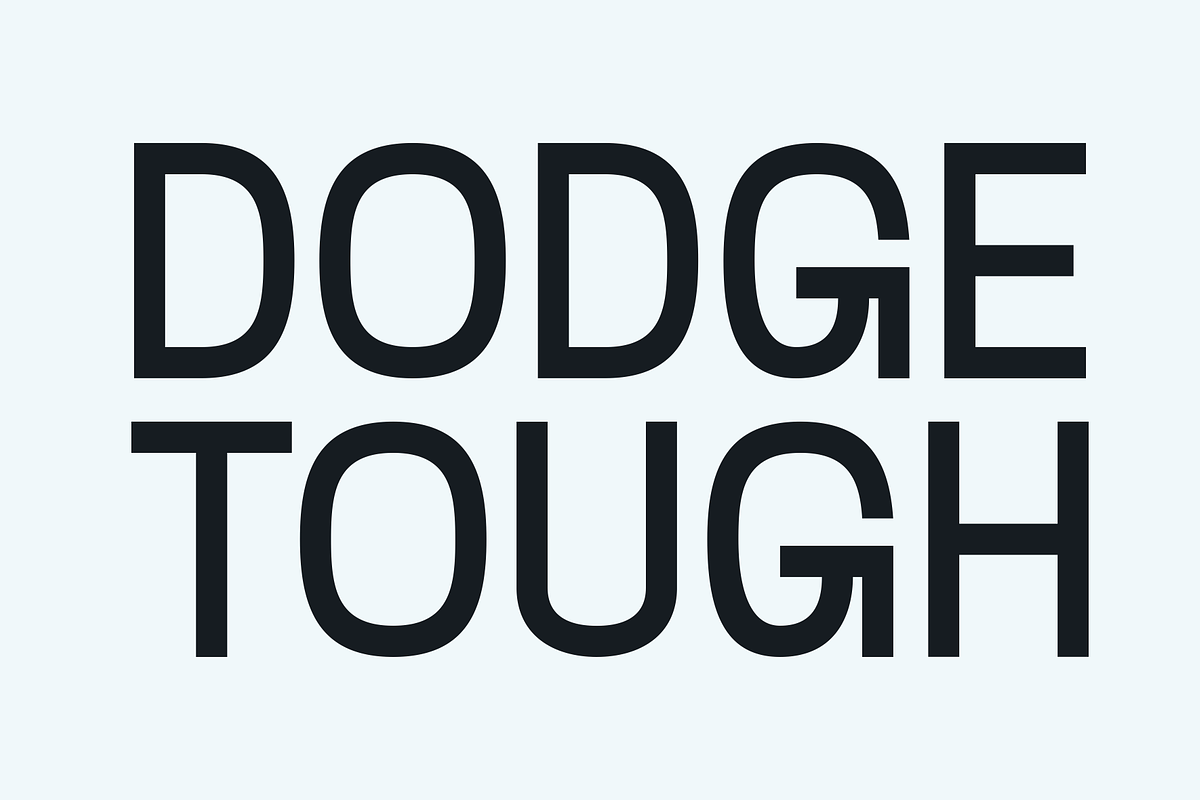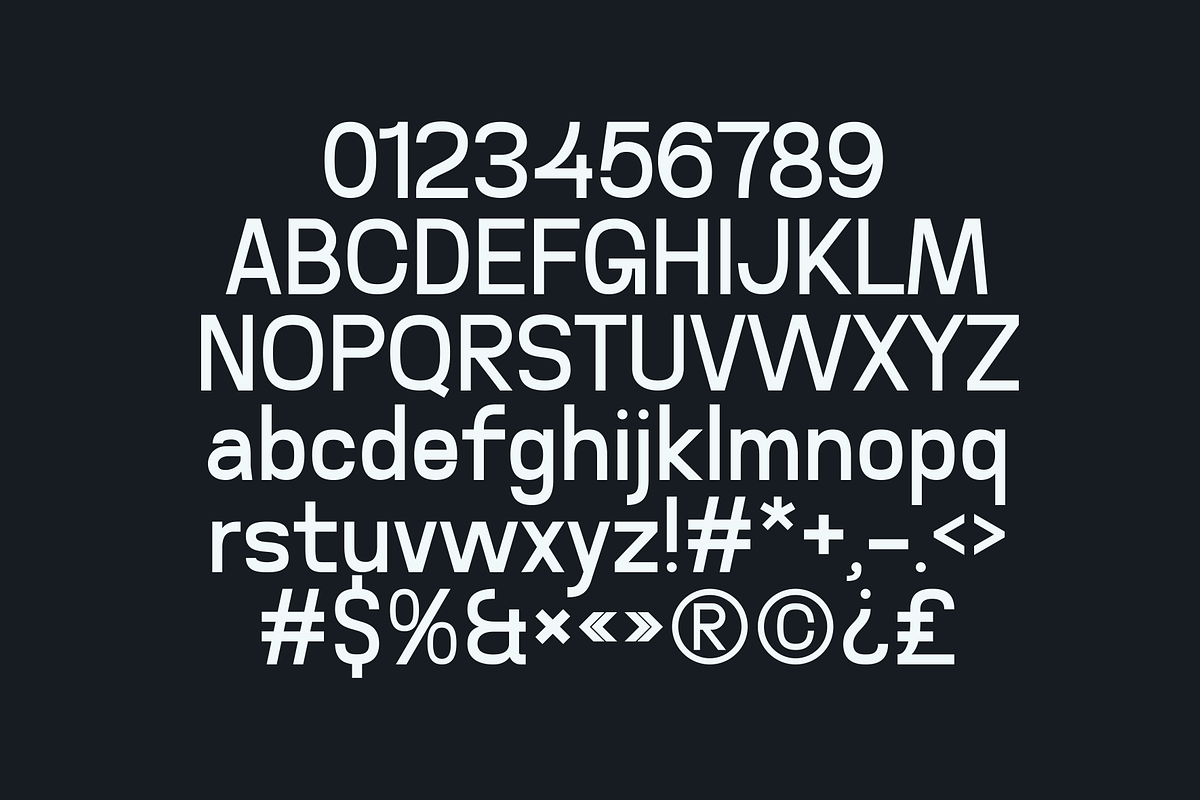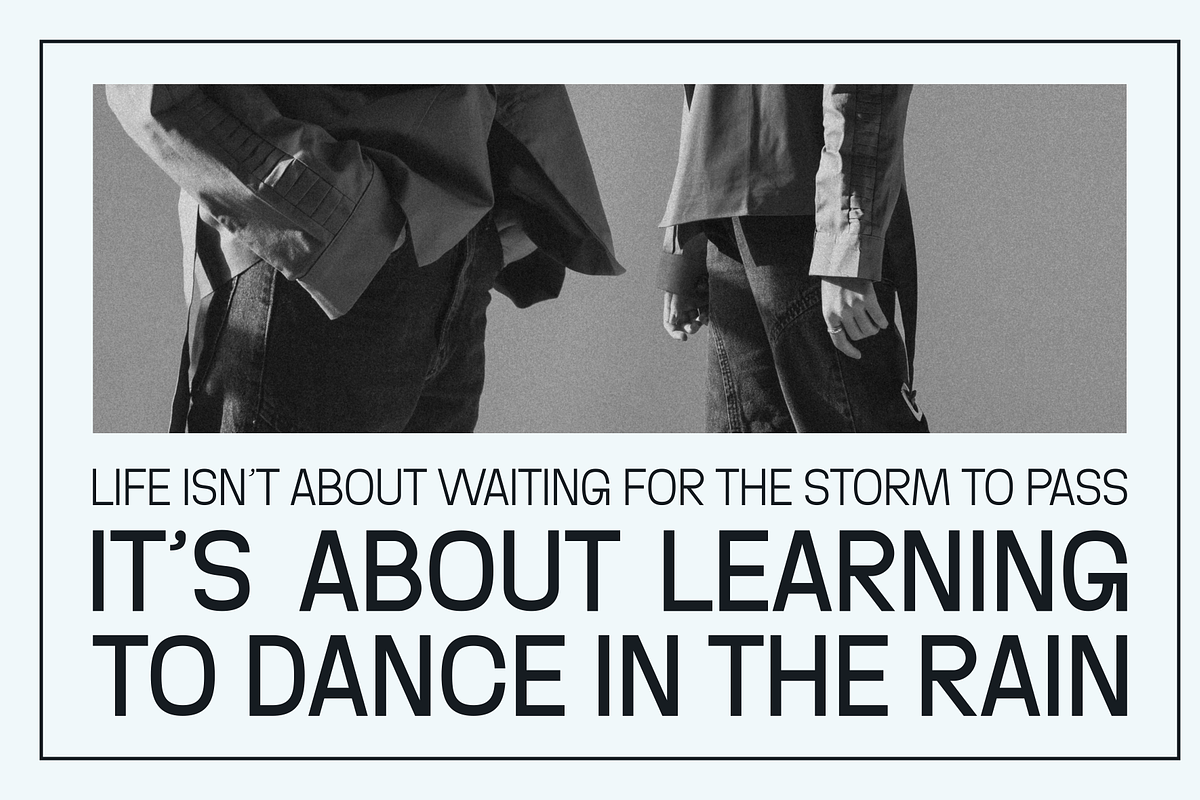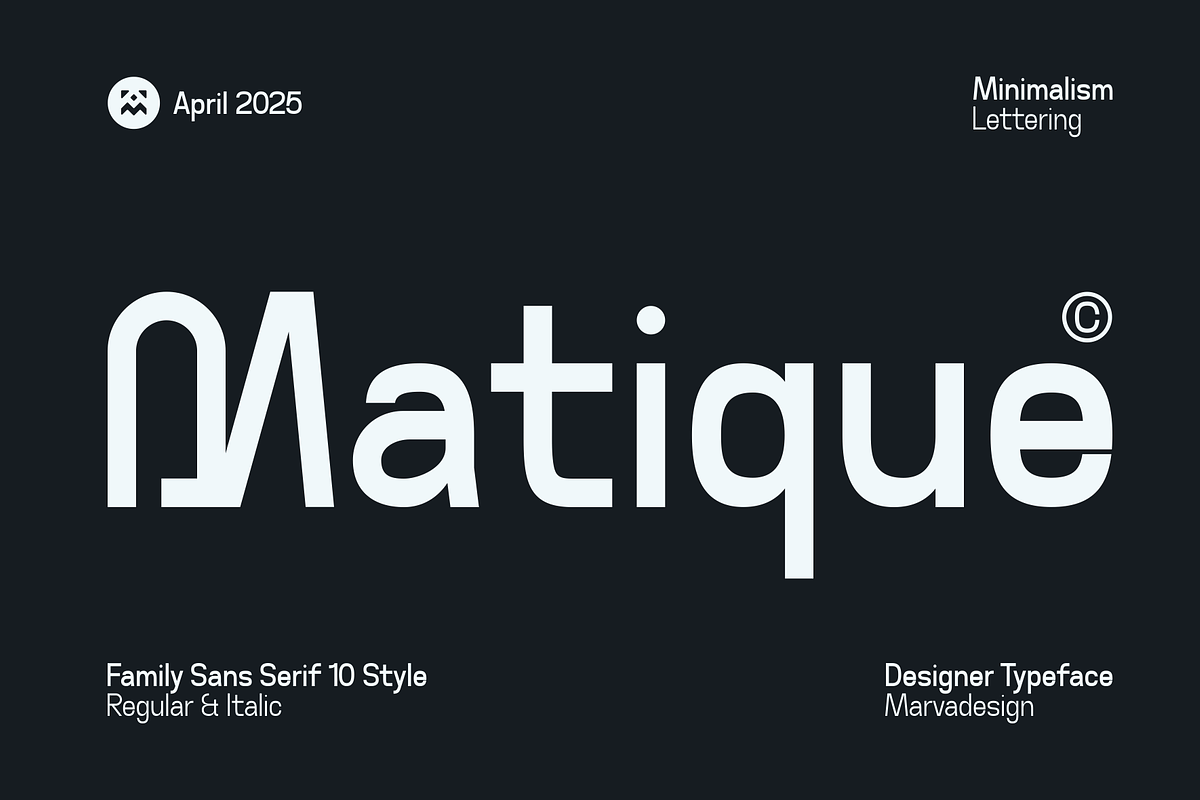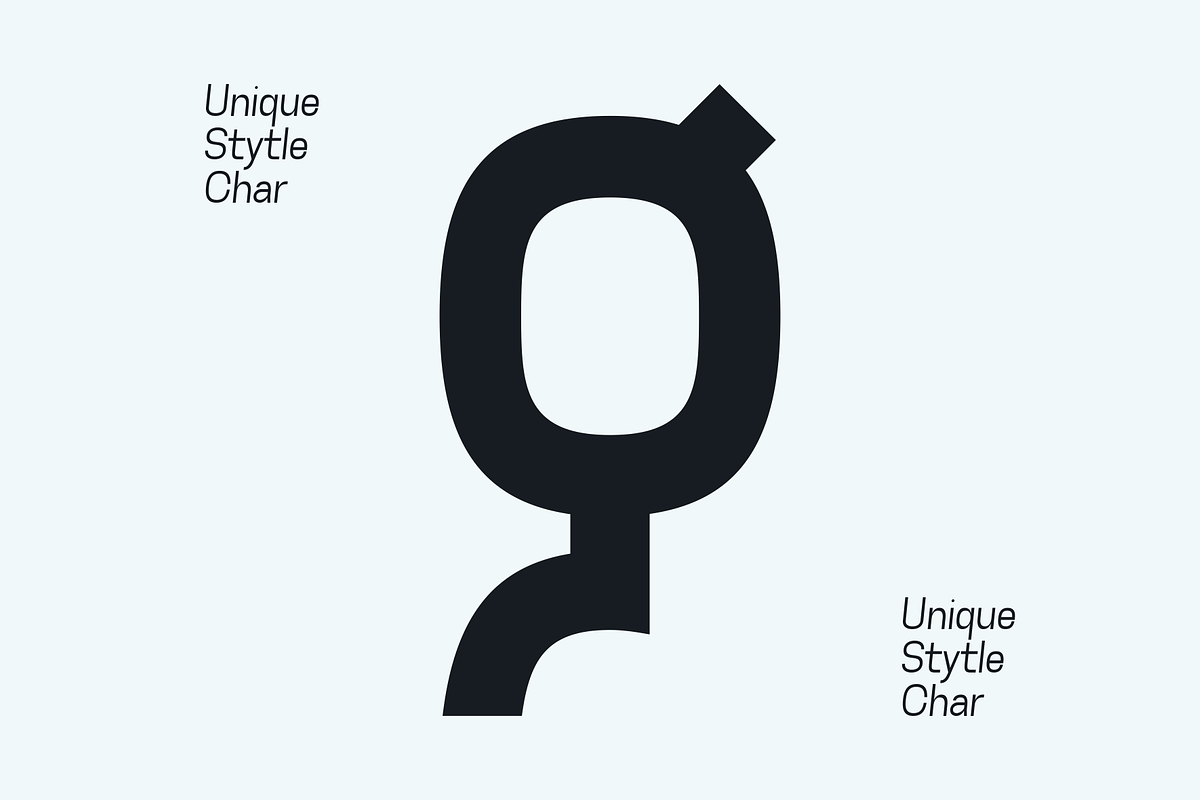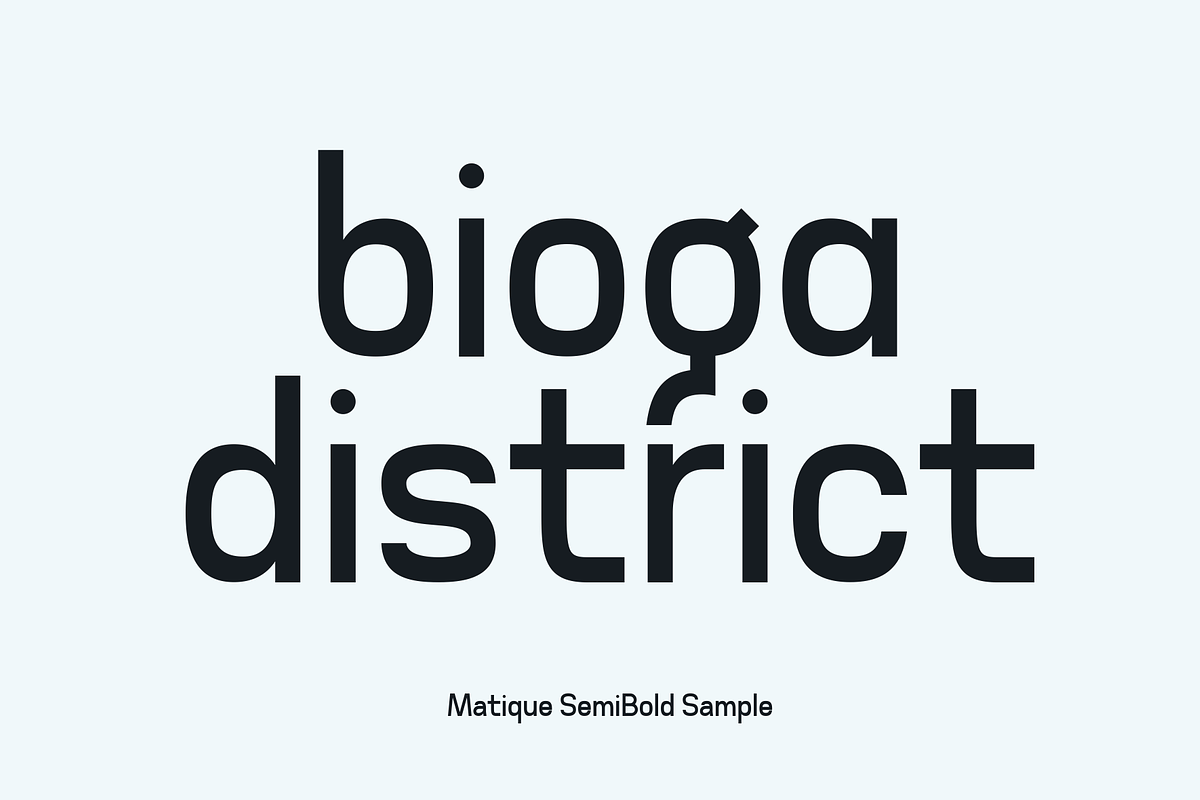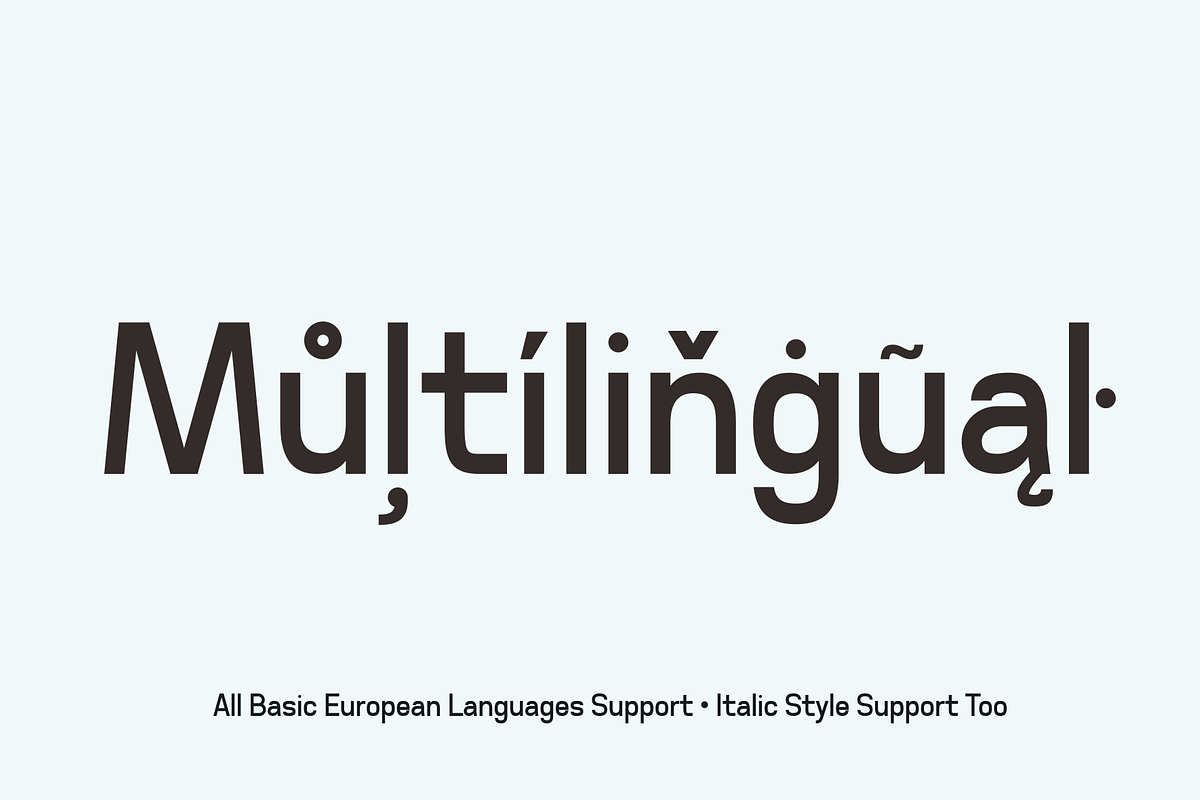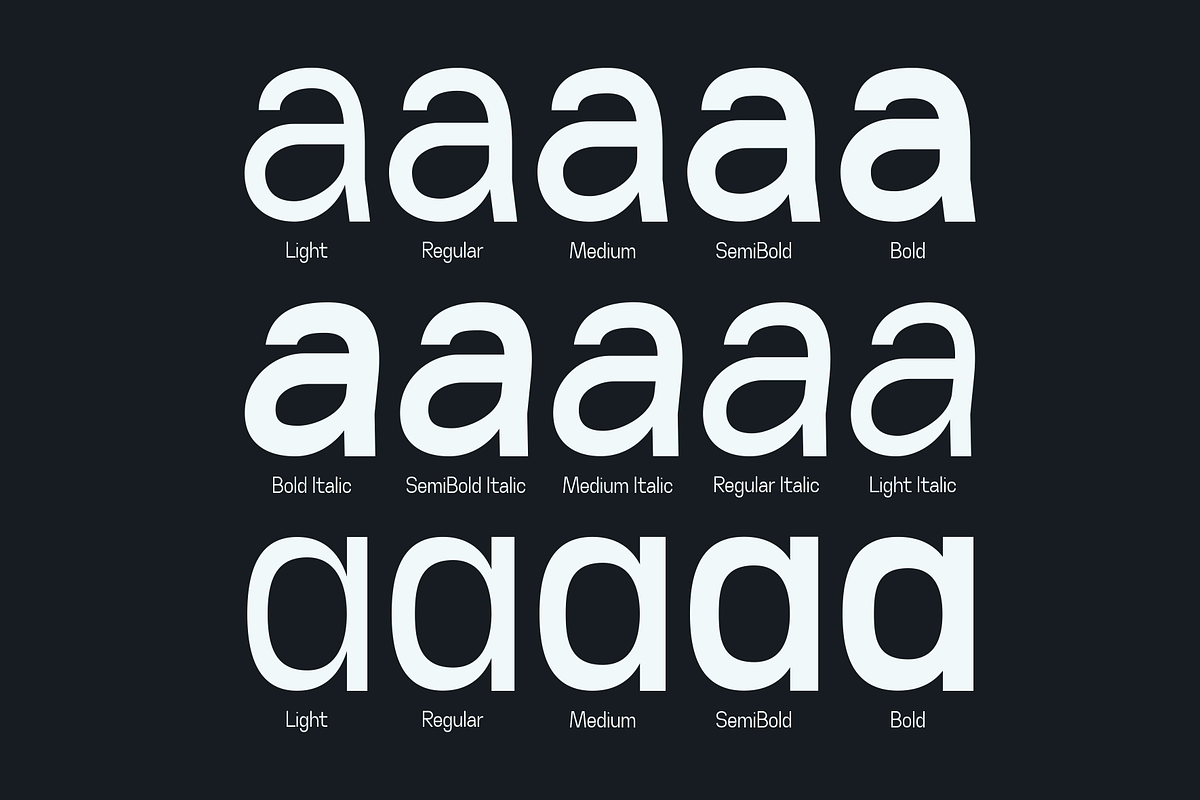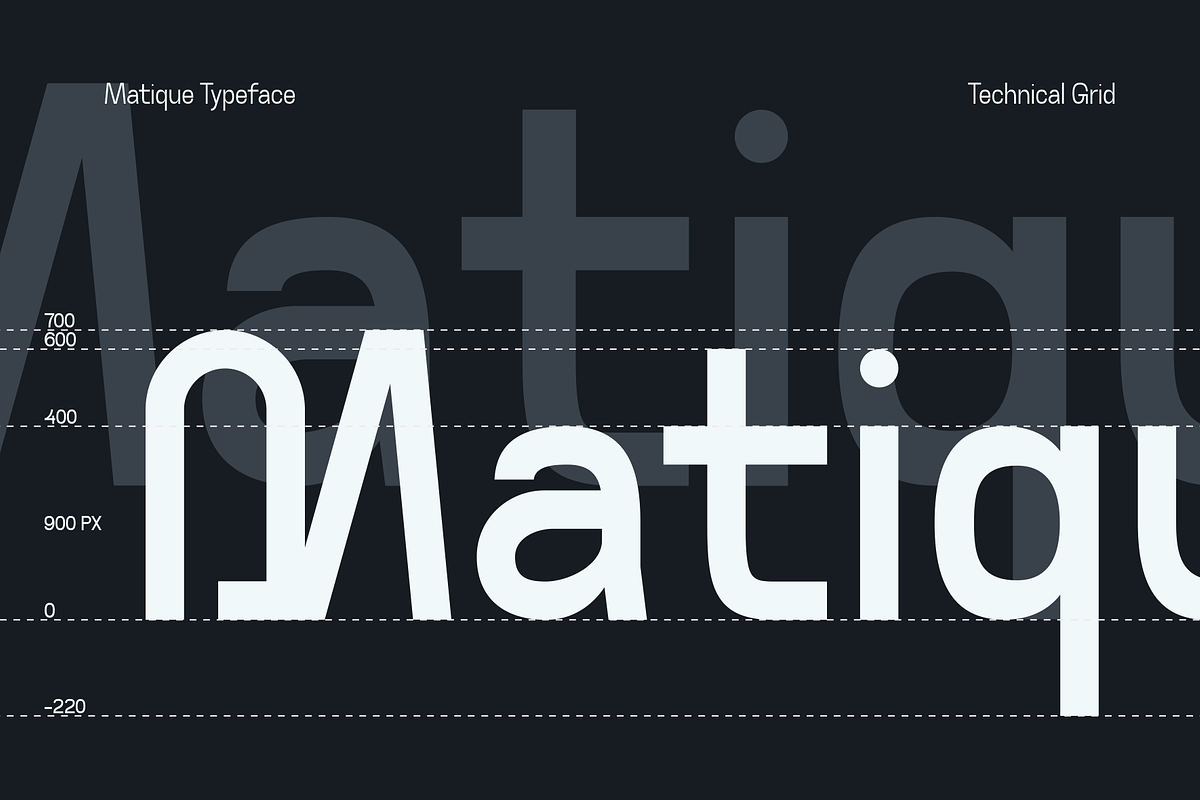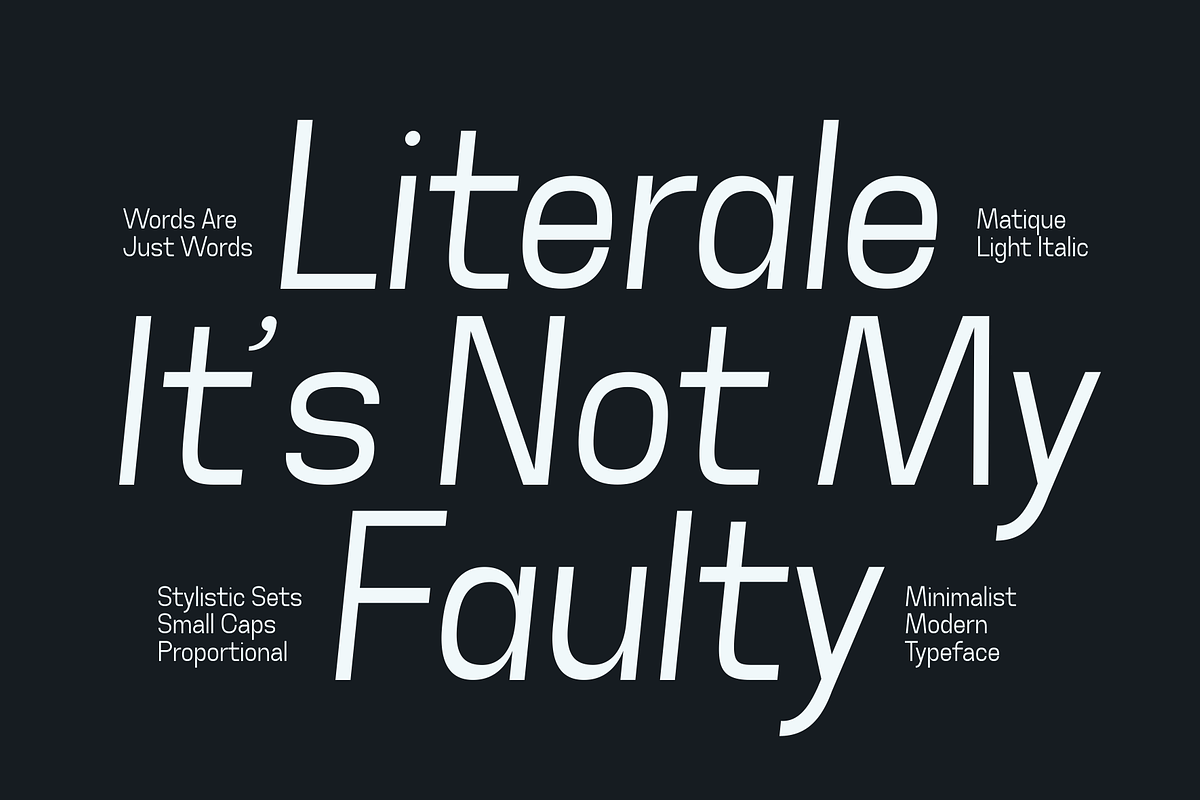
Matique - Family Sans Serif
Introducing New Family Sans Serif Font Matique is a contemporary sans-serif typeface family designed with a minimalist aesthetic in mind. It features clean, geometric lines with subtle stylistic innovations, particularly noticeable in its lowercase characters and ligatures. The typeface includes a comprehensive set of ten styles, available in both Regular and Italic variants, making it a versatile choice for a wide range of design applications.
Its semi-bold weight demonstrates a balance between modern rigidity and organic form, contributing to both readability and character. Matique supports a full Latin character set along with essential symbols and punctuation, suitable for editorial design, branding, and digital interfaces.
The styles include
- Light
- Light Italic
- Regular Italic
- Medium
- Medium Italic
- SemiBold
- SemiBold Italic
- Bold
- Bold Italic